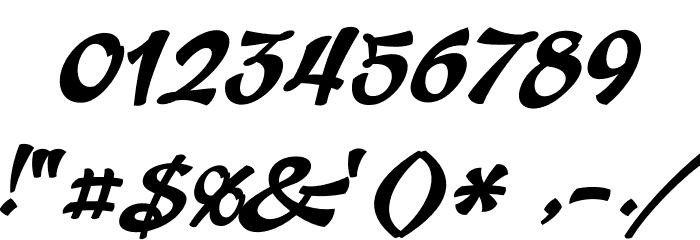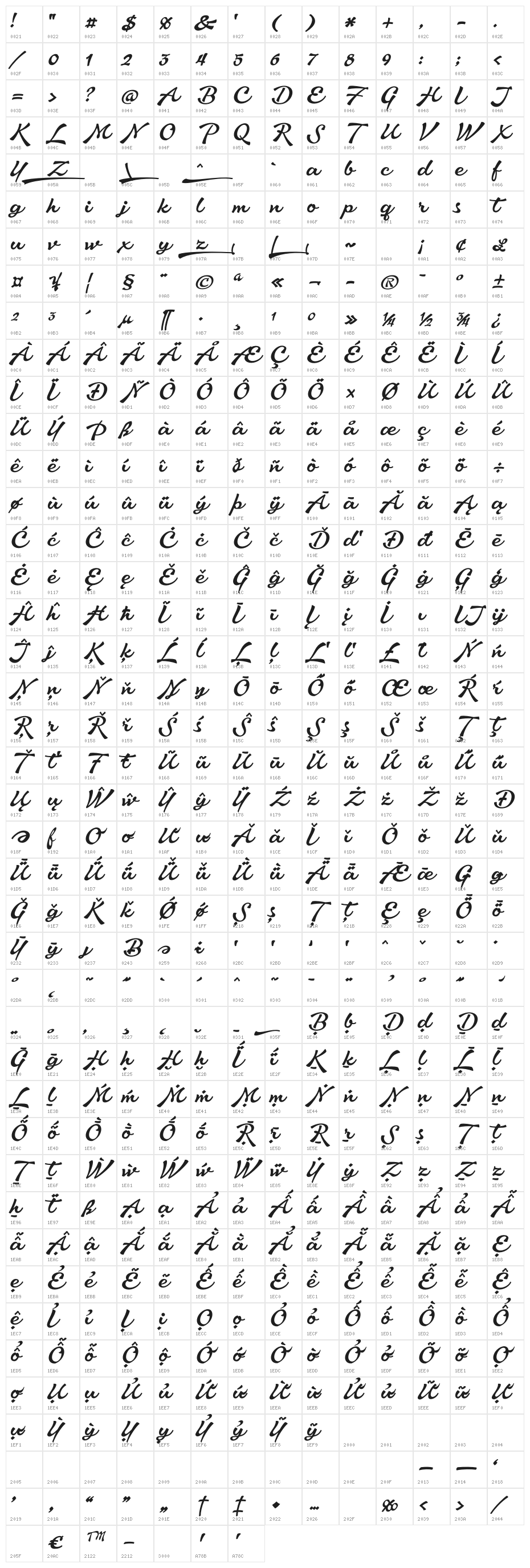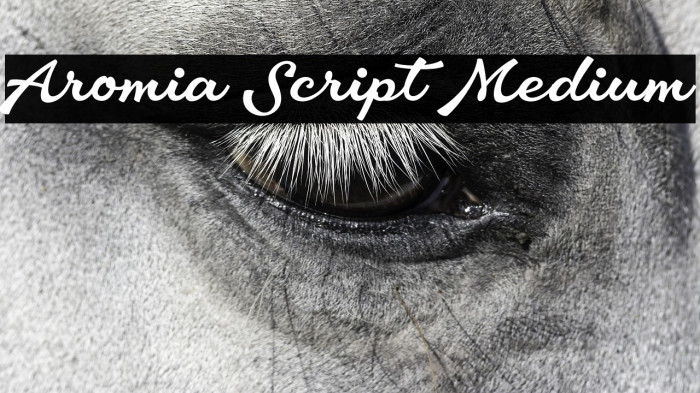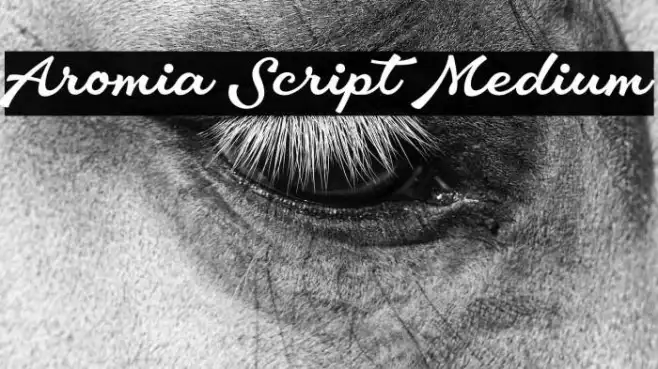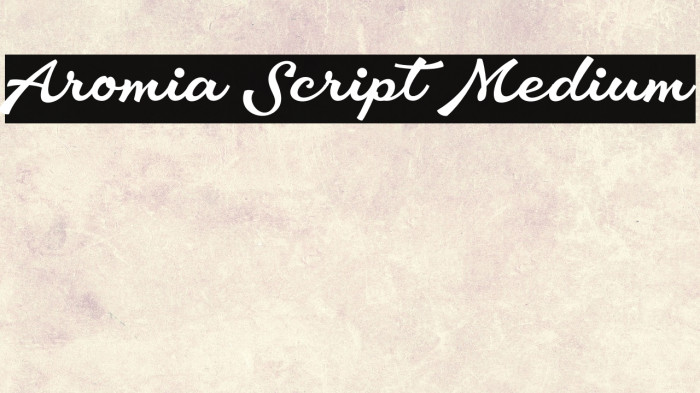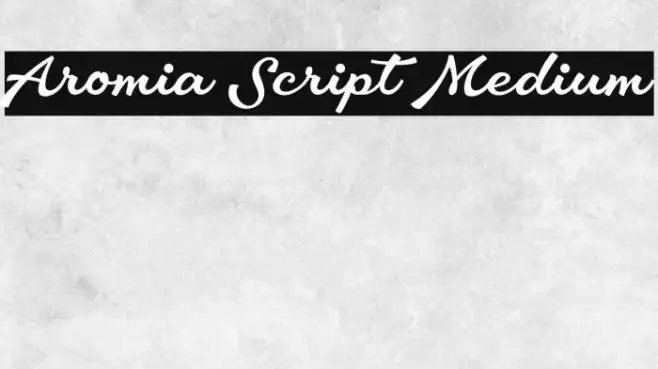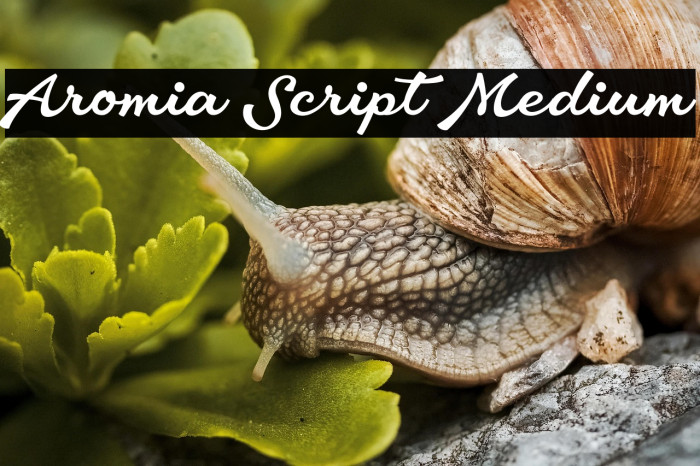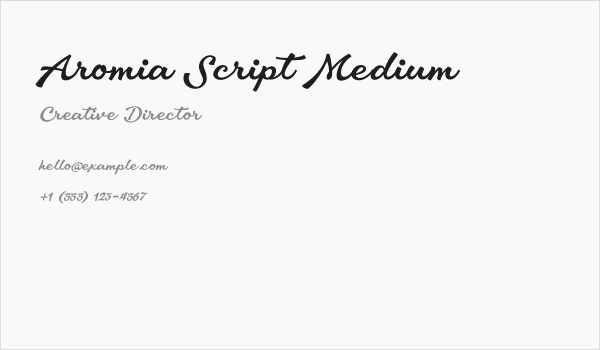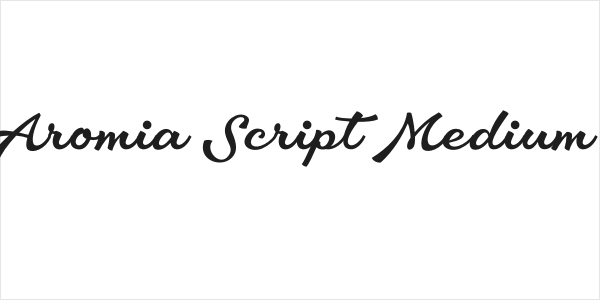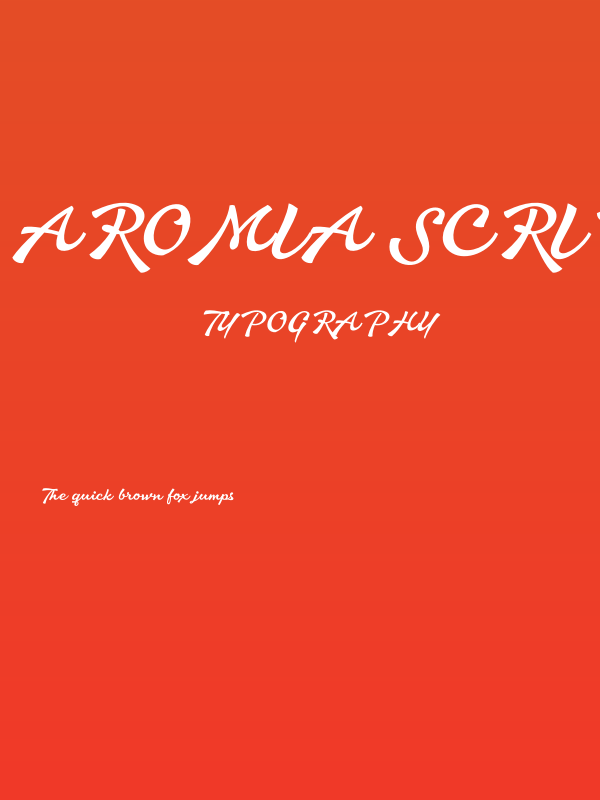
Aromia Script Medium Font
Aromia Script Medium Description
This font exudes a lively and flowing script style, characterized by its elegant and cursive letterforms. The uppercase letters are bold and sweeping, with a sense of movement that suggests a handwritten touch. The lowercase letters maintain a consistent flow, connecting smoothly in a way that enhances readability while preserving the script's artistic flair. The numerals are distinct and bold, matching the overall style of the alphabet. Special characters are crafted with the same attention to detail, ensuring they integrate seamlessly with the rest of the font. This script is perfect for adding a personal and sophisticated touch to any design.